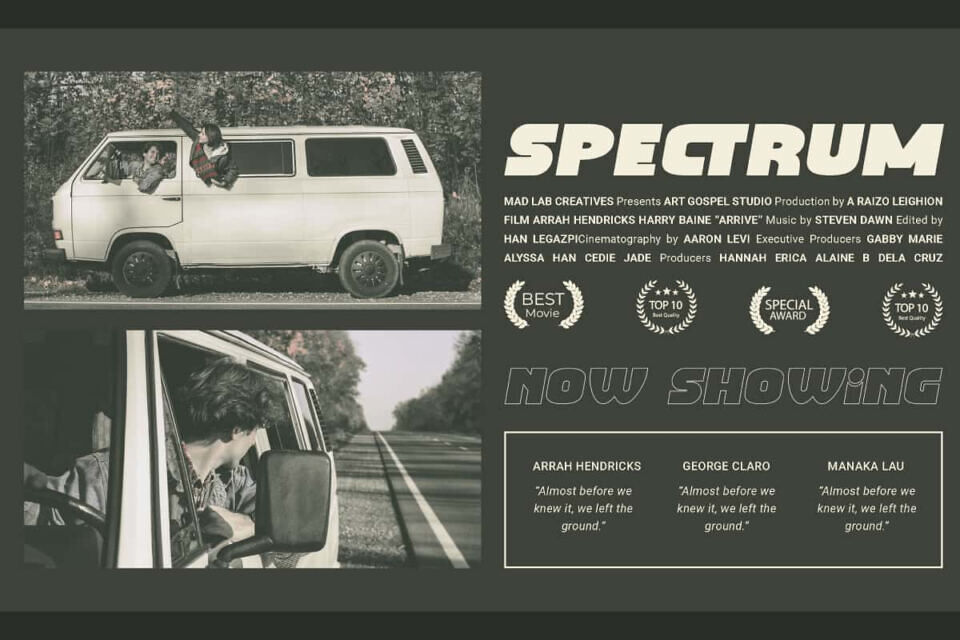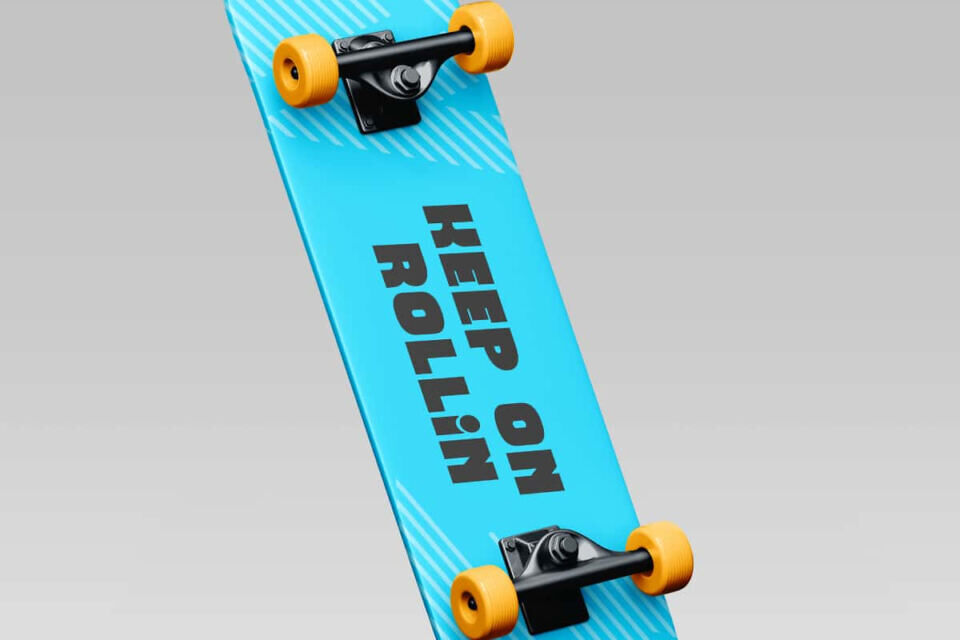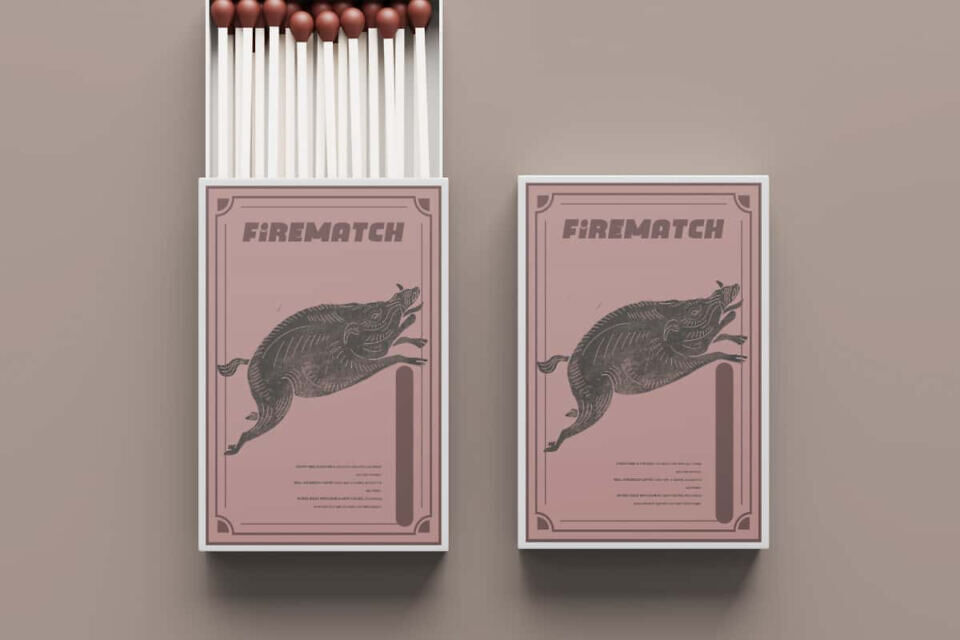
Drift Spring Font
Drift Spring Font is a fun bold and rounded font suitable for automotive, sports, racing or other project designs looks to be unique by RaisProject. This font can enhance designs with a sports theme with its characters that have a playful touch. It will look good on poster, signage, stationery, label, custom design, invitation,  product packaging, quotes, web, and more!
Drift Spring font will steal the attention of many people and will be suitable for various industries, such as fashion, game, sports, movie, music, cafe, event or festival, printing, publishing, etc.